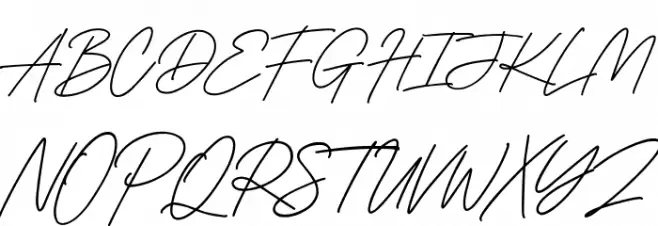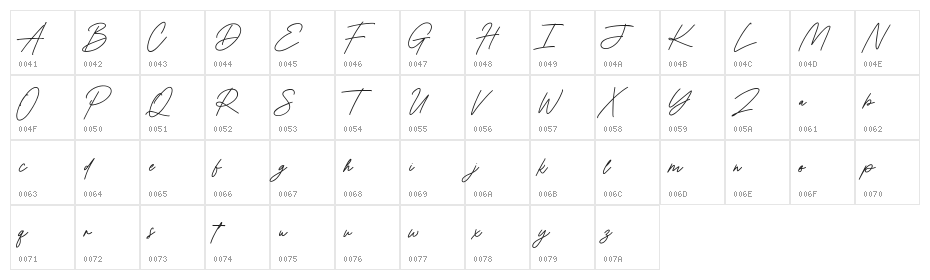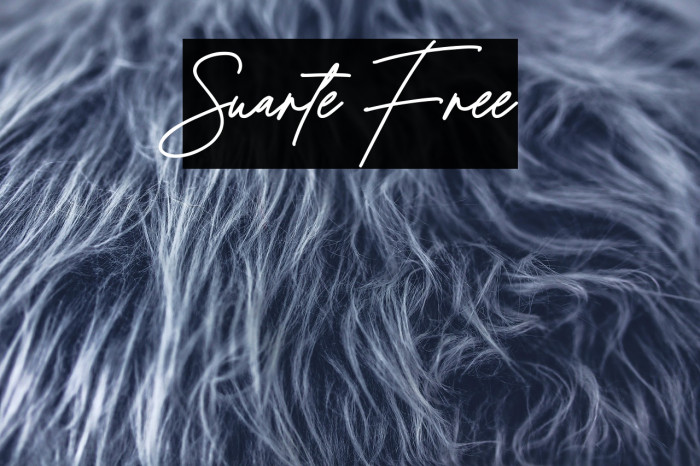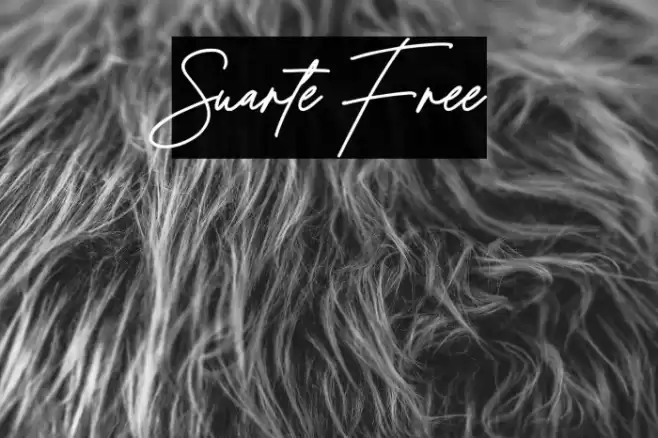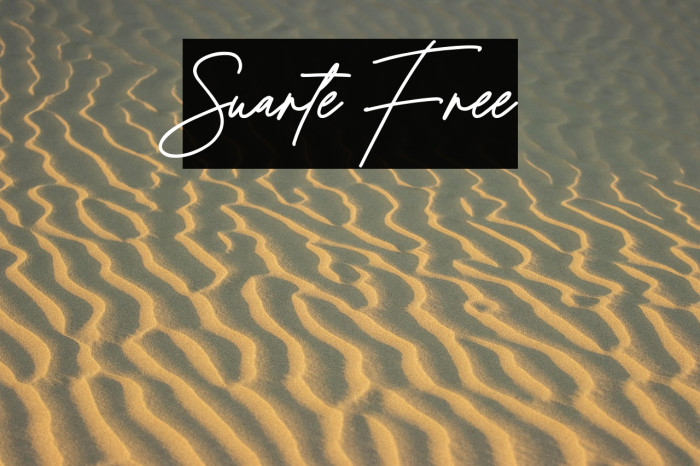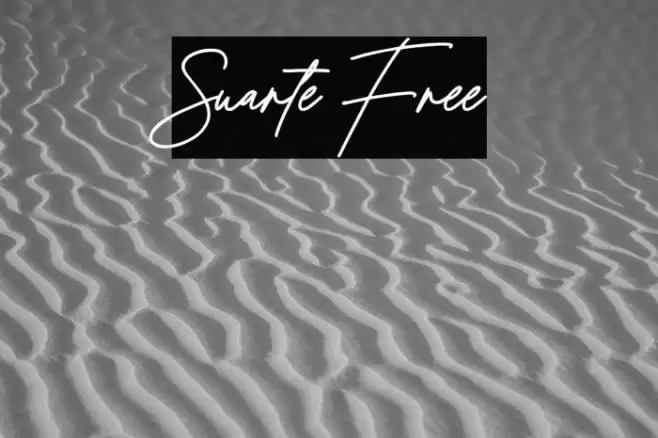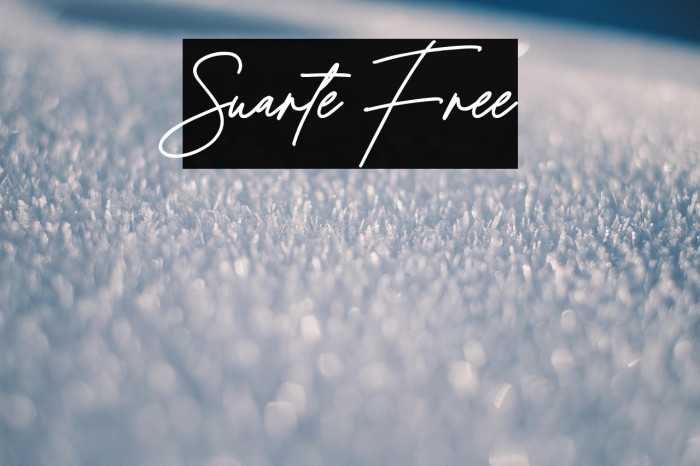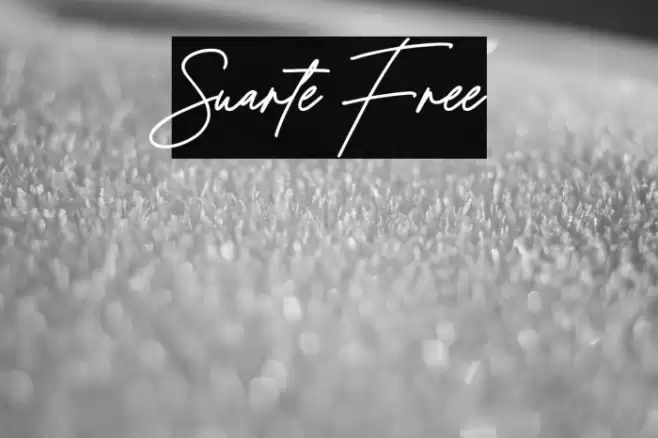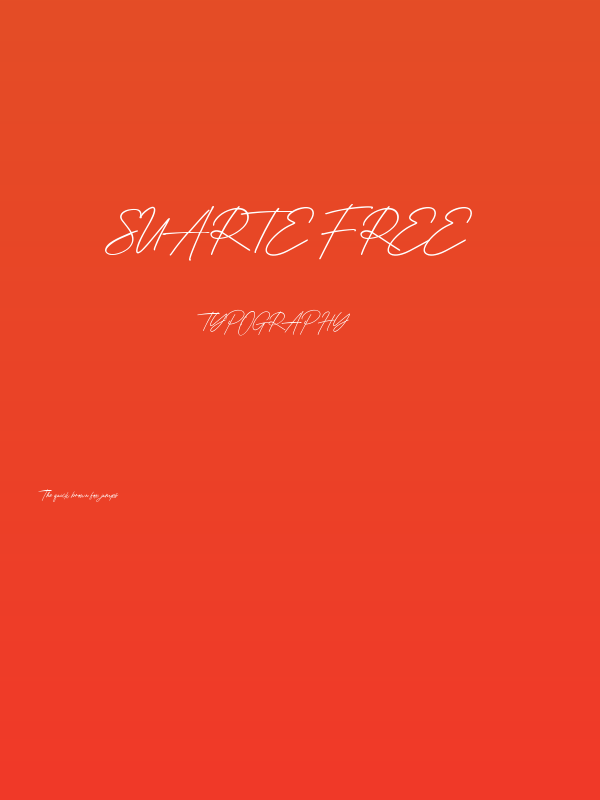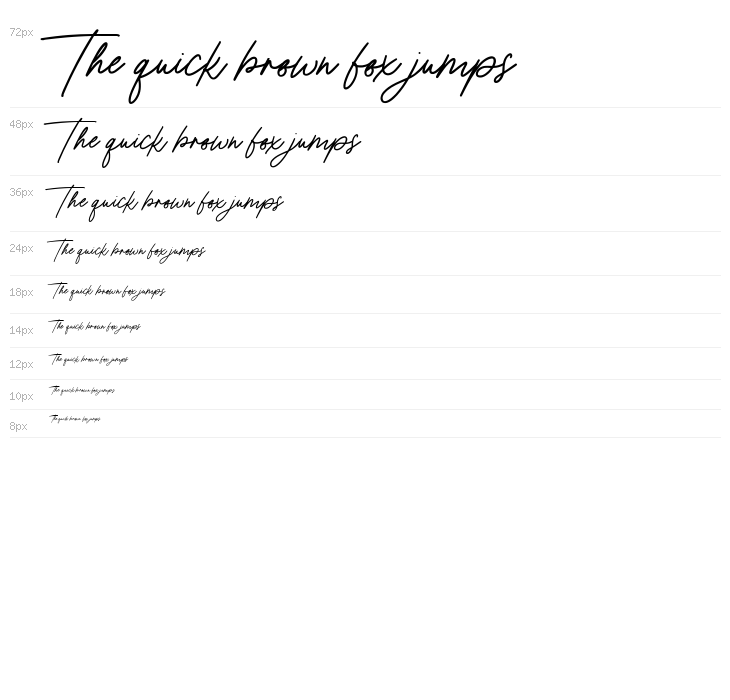
Suarte Free Font
Suarte Free Description
This font features an elegant, flowing script style that mimics natural handwriting. The letters are connected with smooth, continuous strokes, giving it a fluid and dynamic appearance. The uppercase letters are tall and slightly slanted, while the lowercase letters maintain a consistent baseline with gentle curves. The overall design is sophisticated and stylish, making it suitable for projects that require a personal touch. The thin strokes and delicate lines contribute to its graceful aesthetic, ideal for invitations, greeting cards, and branding materials.